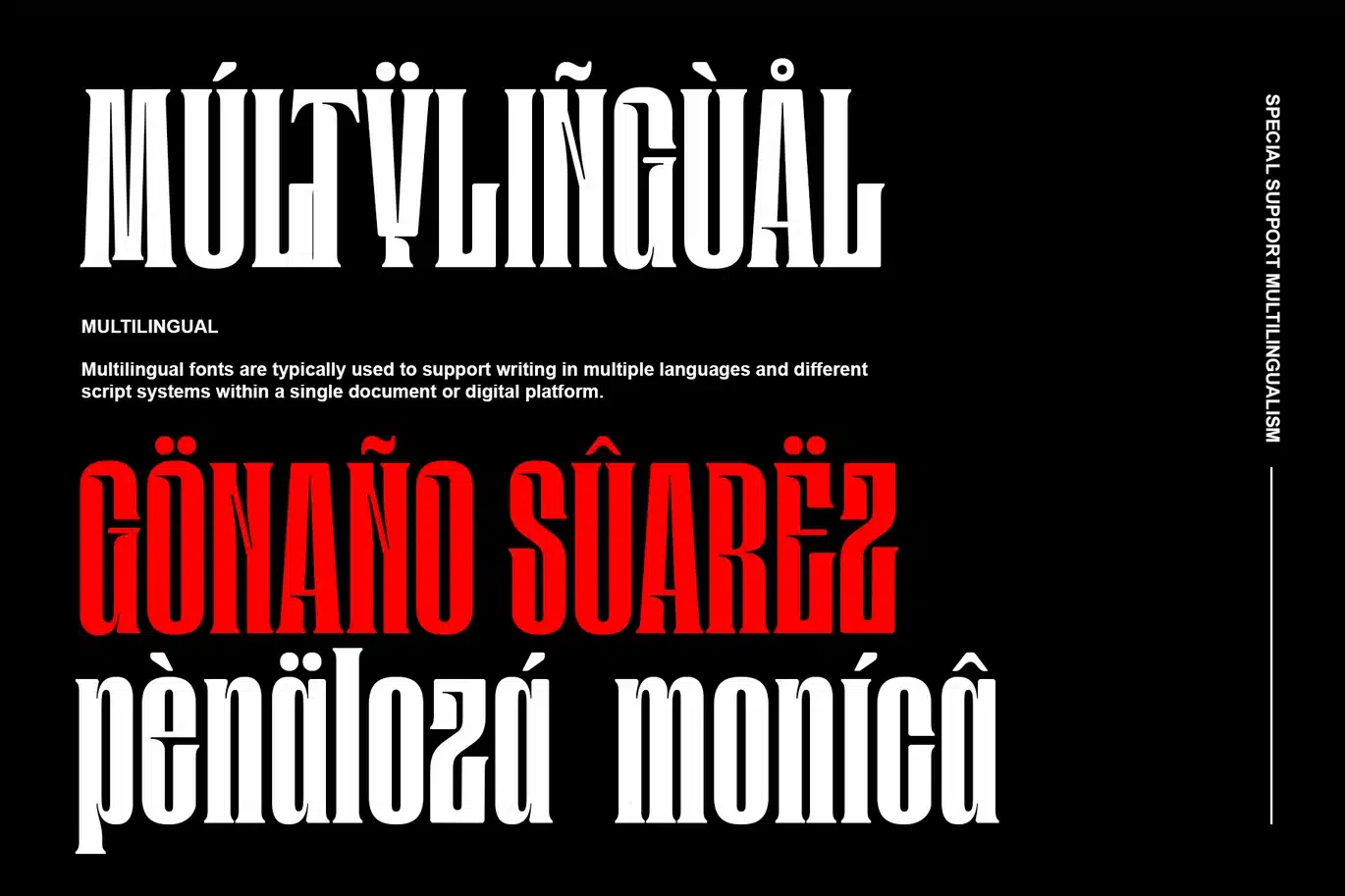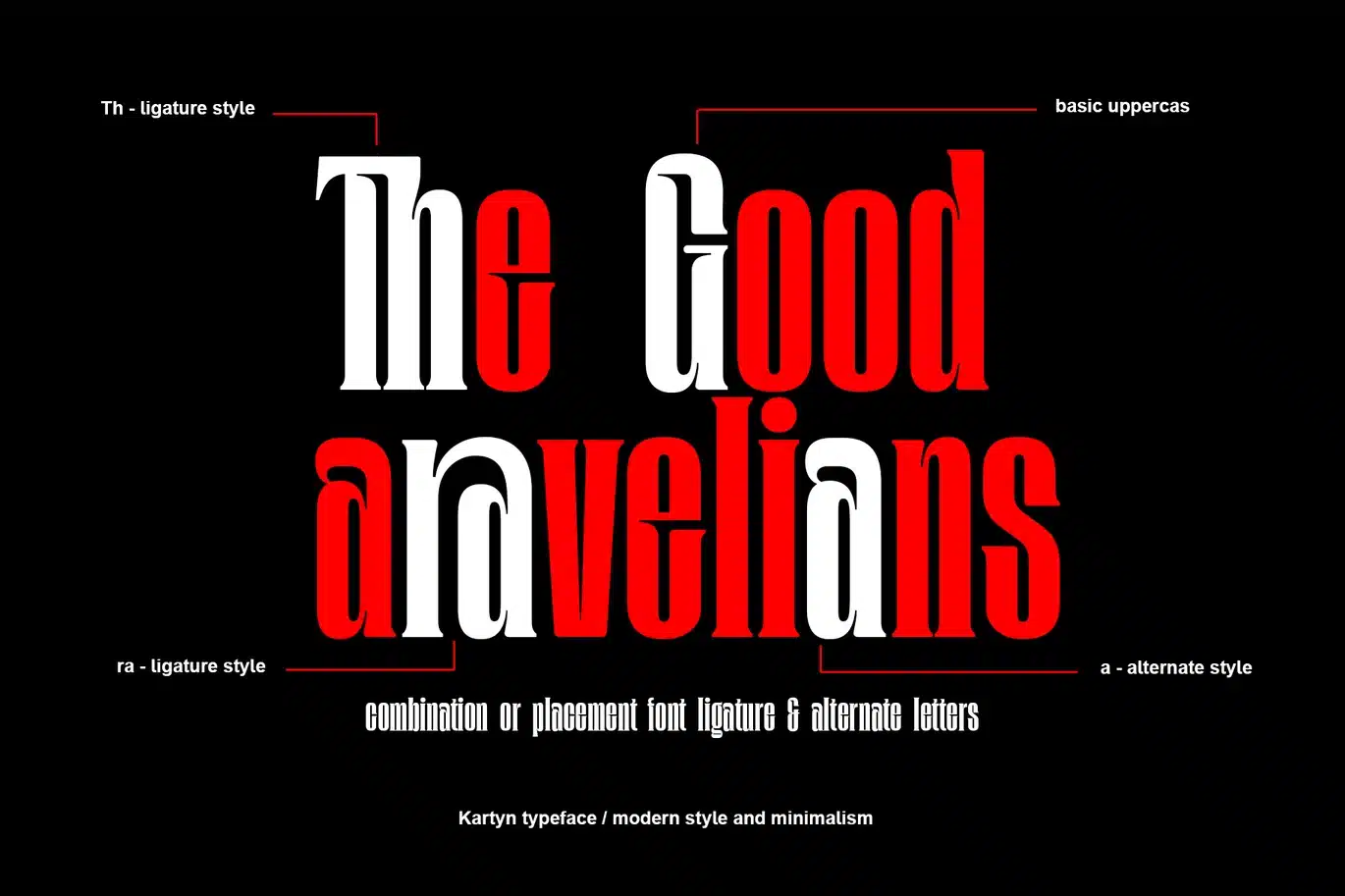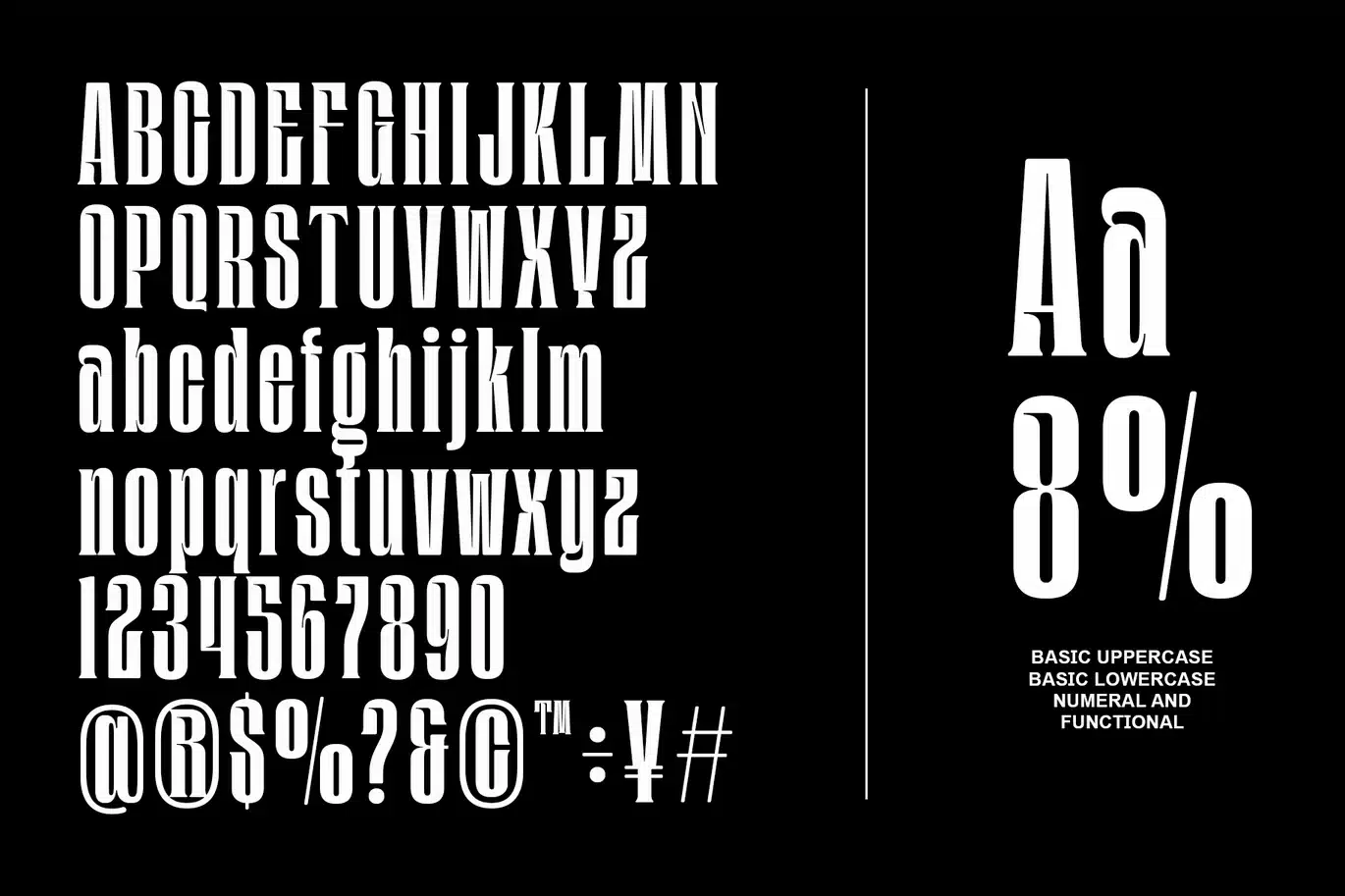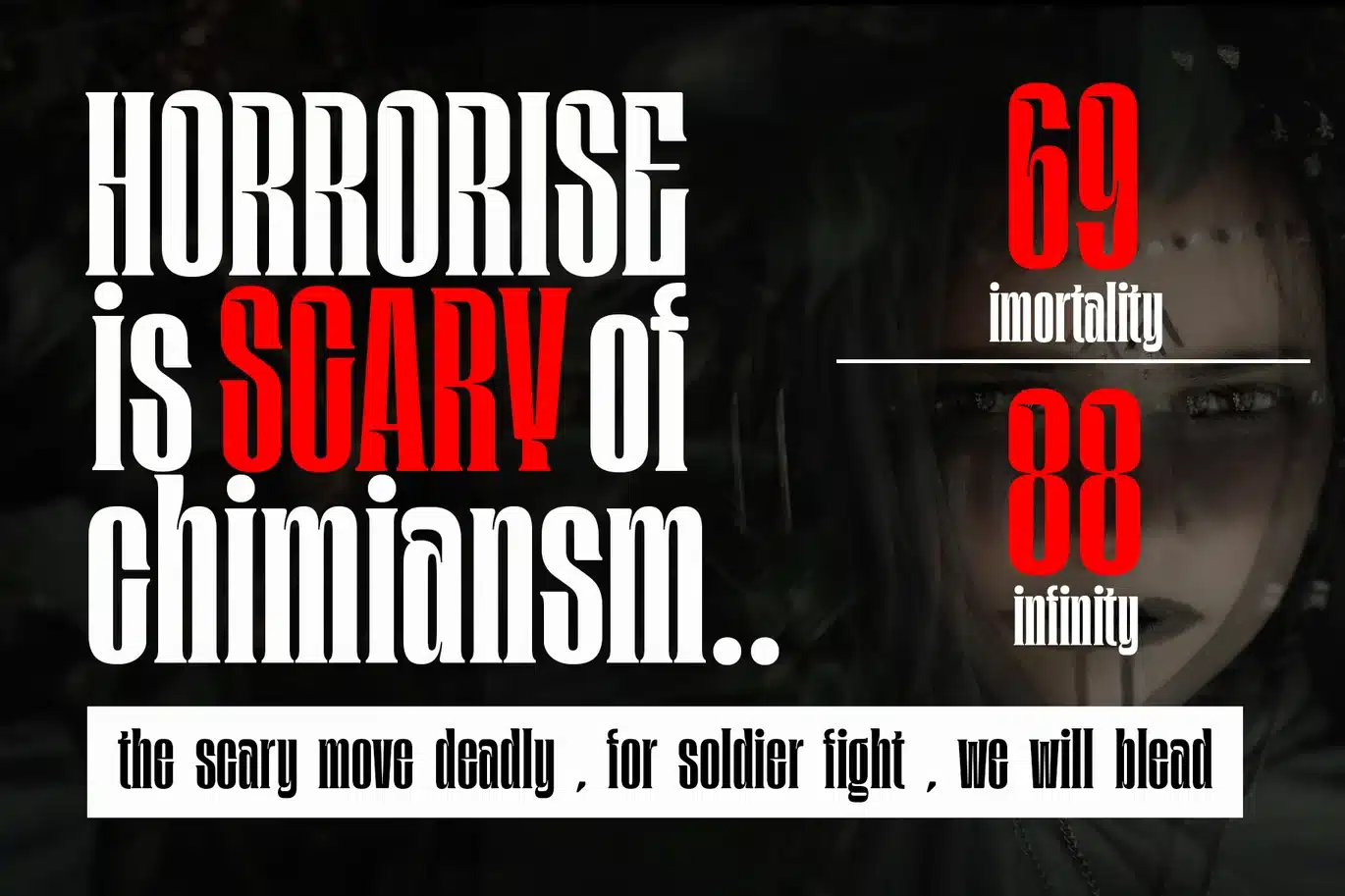
Kartyn Font
Kartyn – Gothic Cinematic Display Font
Kartyn is a bold and elegant gothic display font designed to bring a dark, cinematic, and high-impact look to your designs. Featuring tall proportions, condensed shapes, and sharp serif details, Kartyn delivers a strong visual presence that stands out in any project.
Perfect for horror themes, movie titles, posters, fashion branding, and editorial layouts, this font blends modern sophistication with a dramatic gothic aesthetic. Whether you're creating a striking headline or a stylish logo, Kartyn adds depth, mood, and character to your work.
Features
- Gothic cinematic display font
- Tall & condensed letterforms
- Uppercase & lowercase characters
- Numbers, punctuation & symbols
- Movie titles & film posters
- Horror & thriller designs
- Fashion branding & editorial
- Logos & headlines
- Album covers & artwork
- Social media & digital content